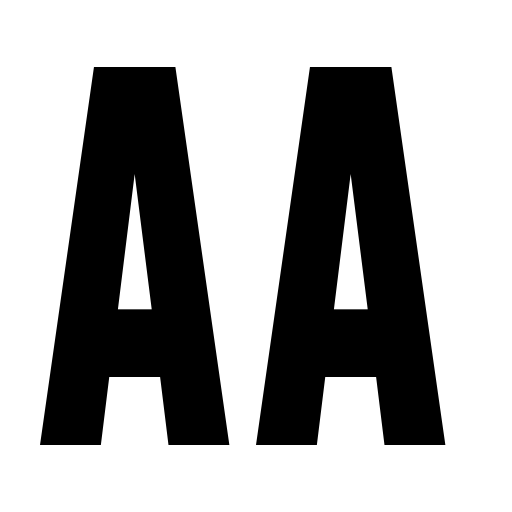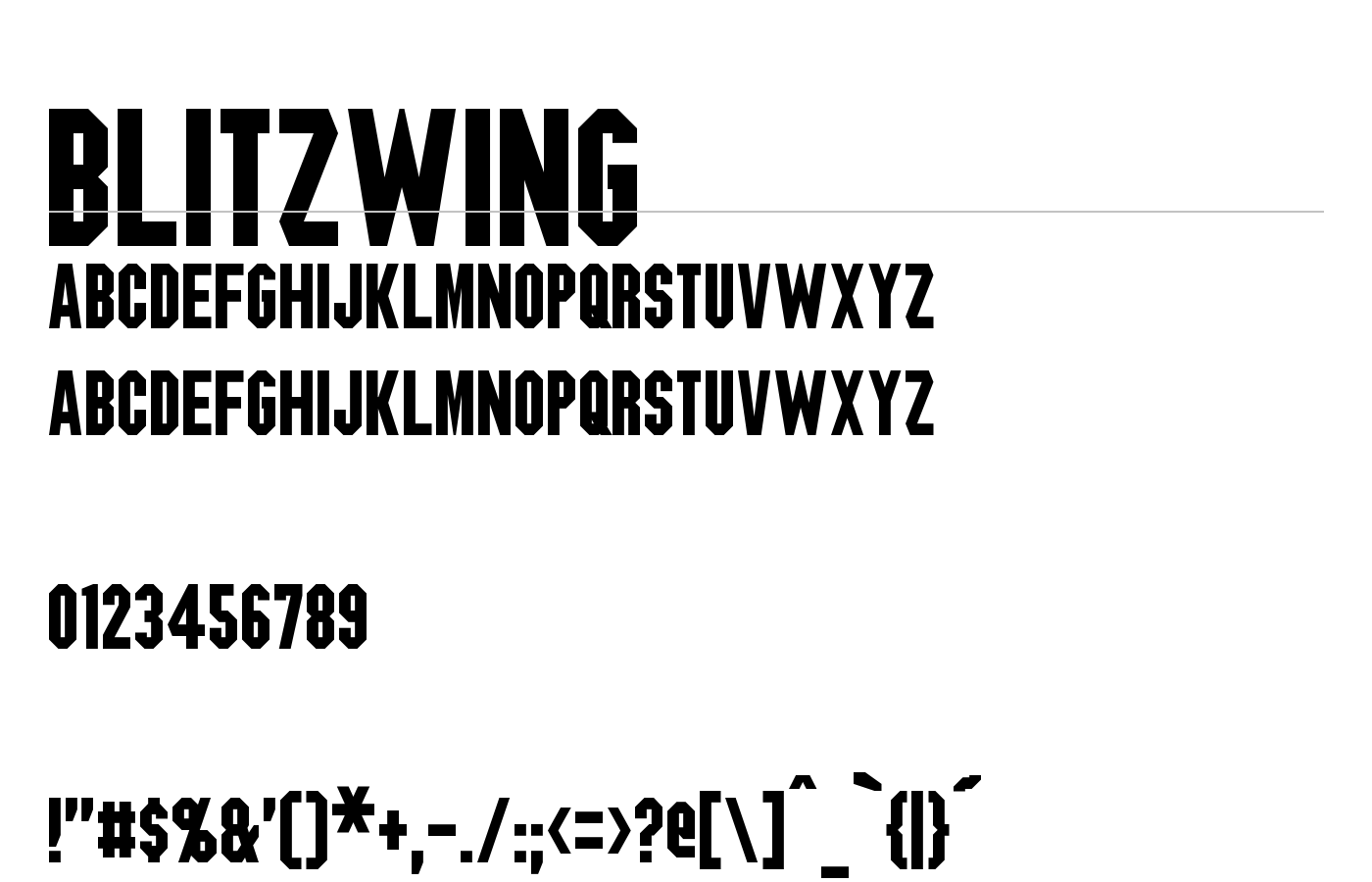
Blitzwing is a bold, condensed sans serif font with a strong, angular design that conveys power and assertiveness. Its high x-height and geometric shapes create a modern and dynamic feel, making it ideal for impactful headlines, logos, and branding that require a confident, industrial edge. This font works especially well where a bold statement is needed, such as in sports, technology, or urban-themed designs.
Blitzwing Font
About Blitzwing Font
| Font family | Blitzwing Font |
| Designer | Neale Davidson |